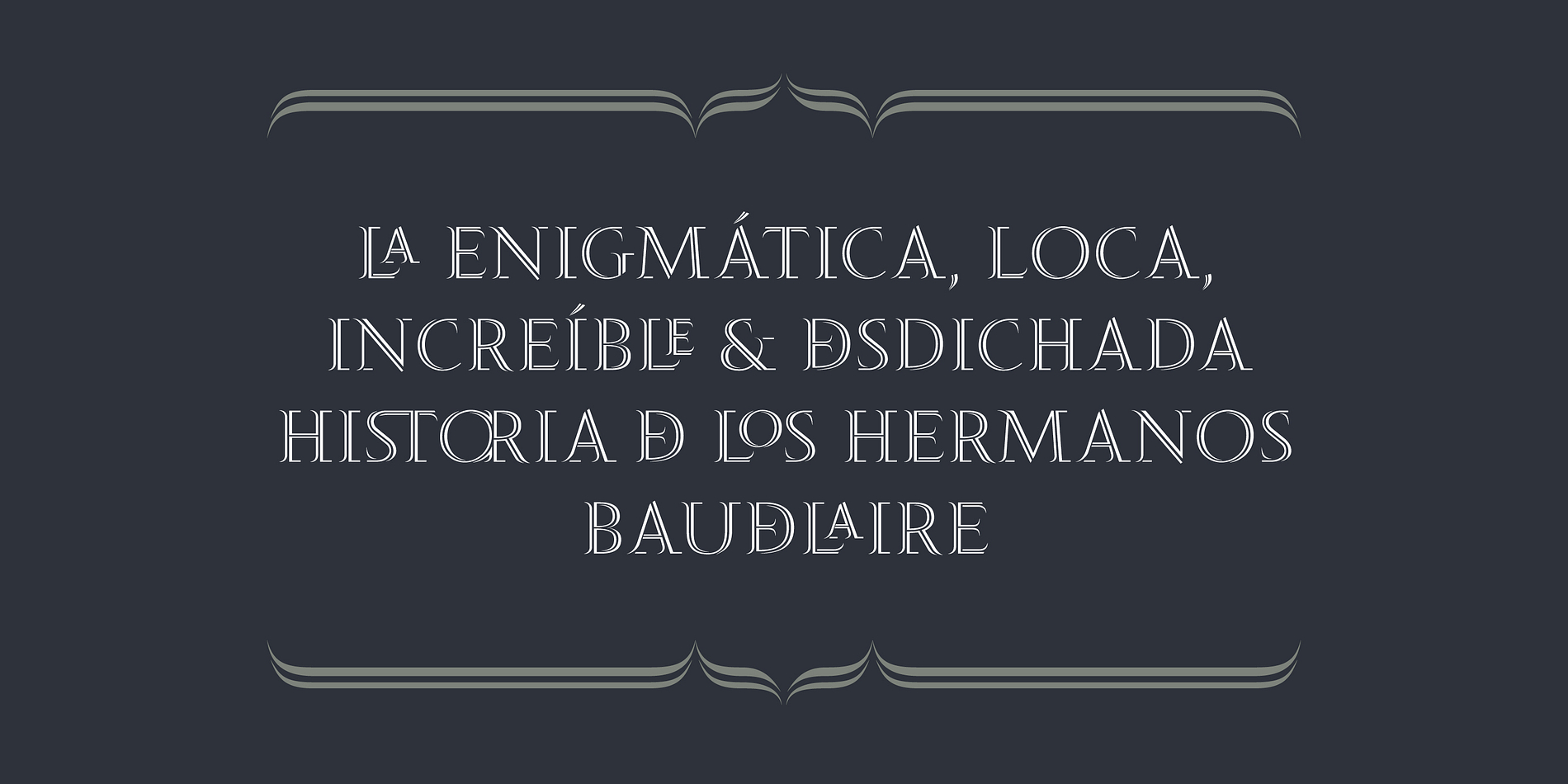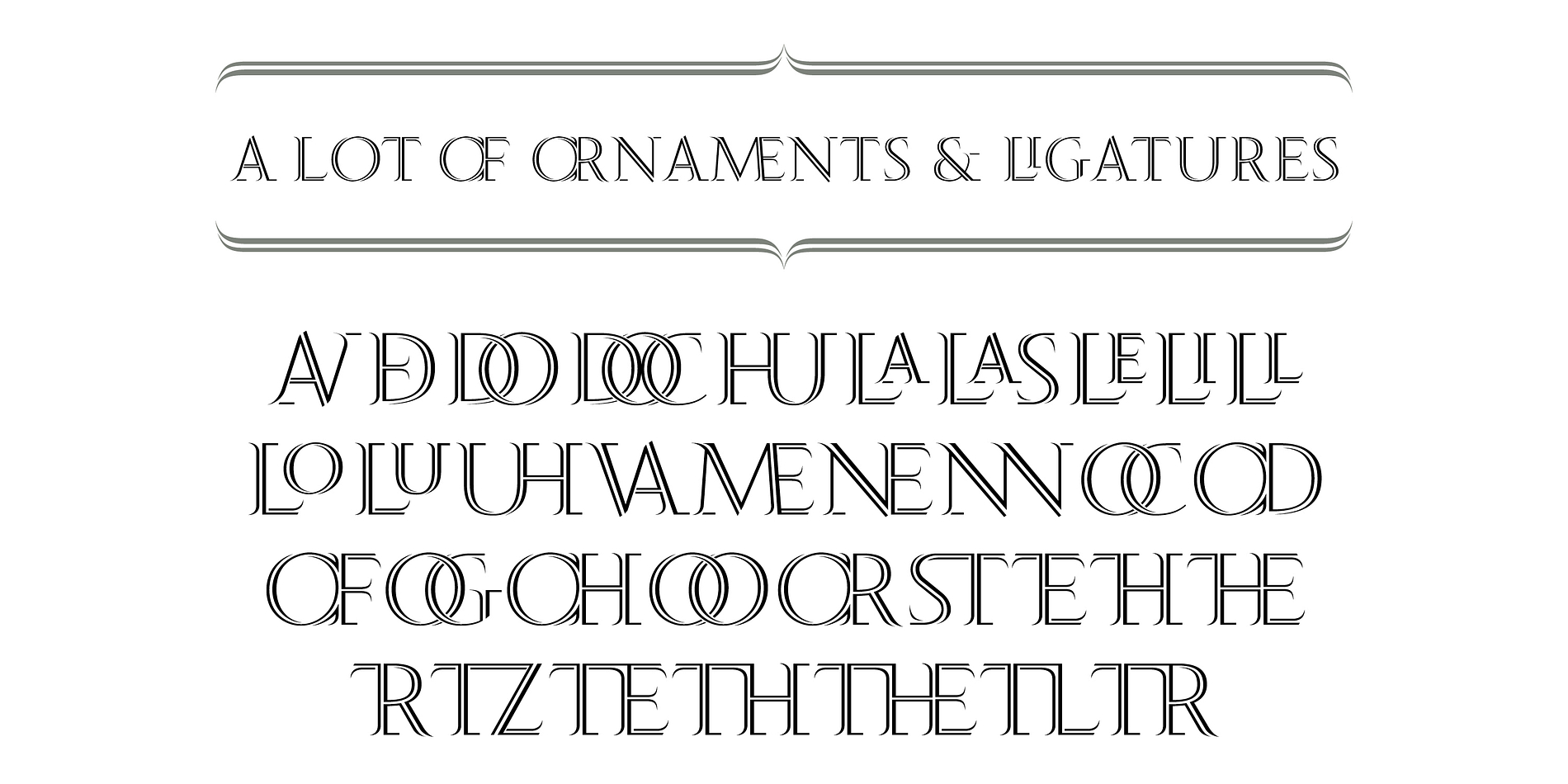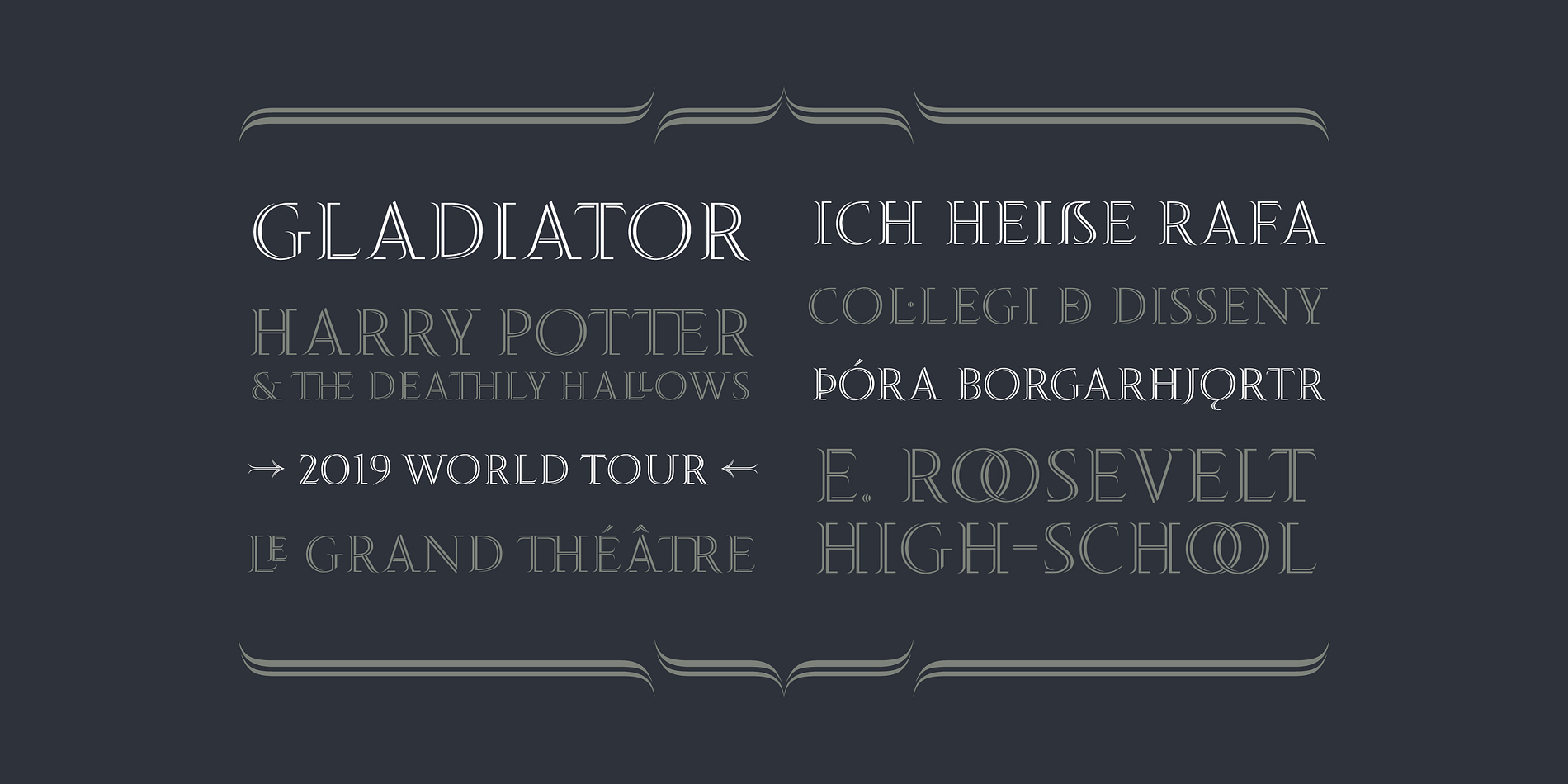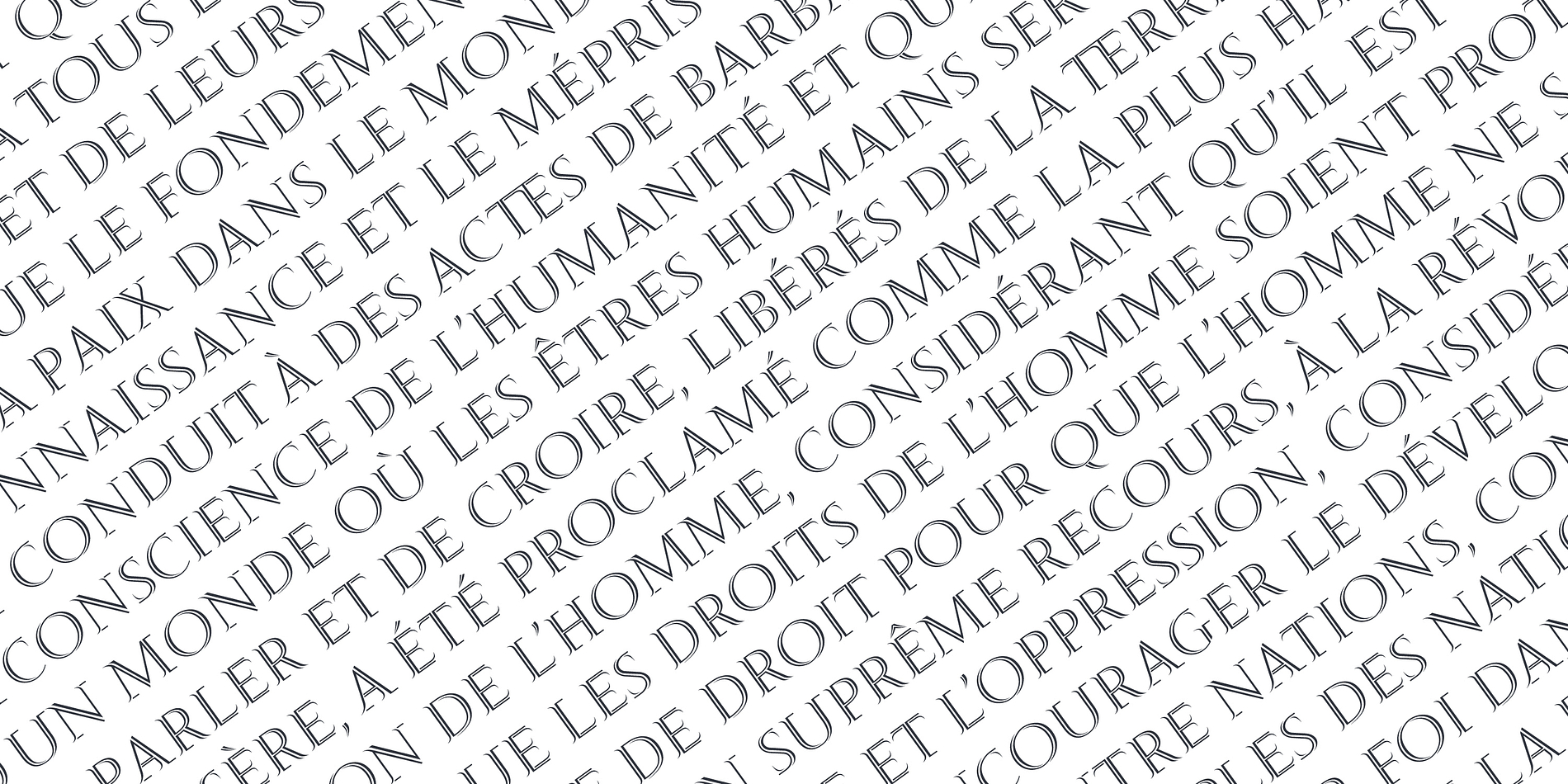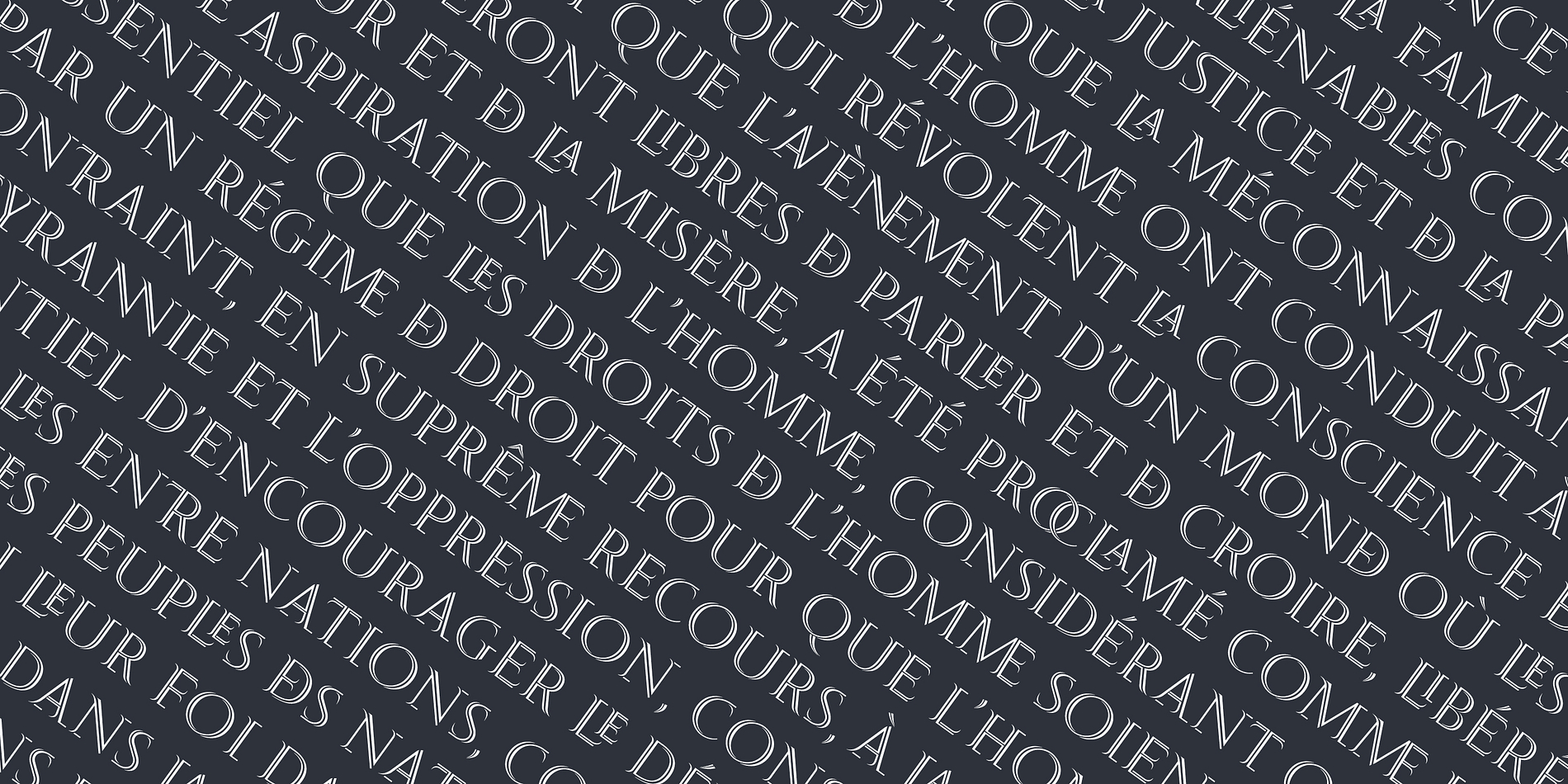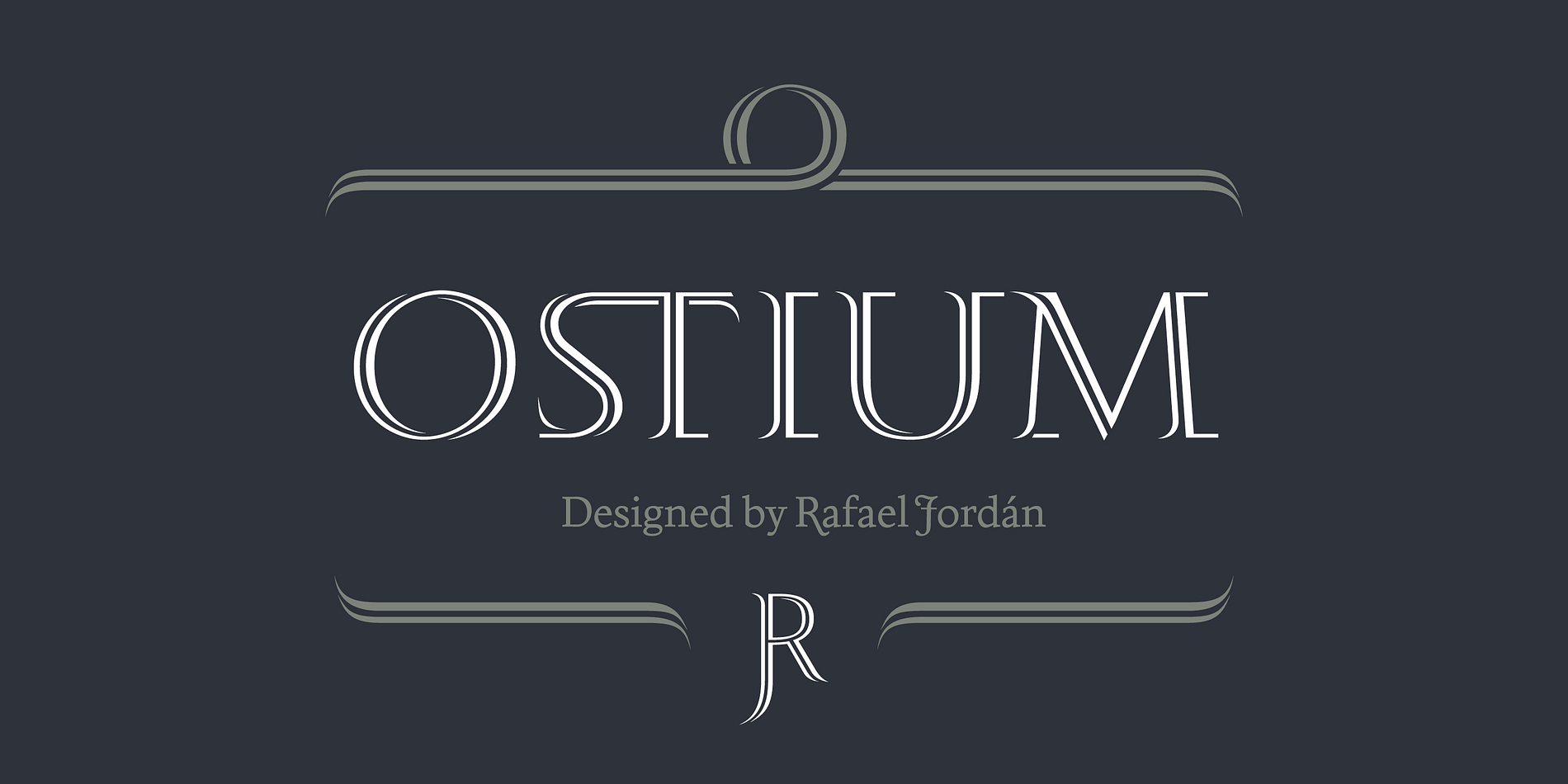
Ostium Font
Ostium is a unicase font with proportions close to classical Romans. An almost modular construction, exaggerated asymmetrical serifs and a stencil appearance by the amount of open forms that prevail in its anatomy and inspire its name: Ostium, from Latin, means “opening”. It was born in December 2018 just with the intention of designing a Christmas greeting for different social media. Based on a couple of sketched letters, a first version of the upper case was quickly drawn. Despite the initial intention with which this system was conceived, just a few hours after launching the greeting, the set of characters had grown. Ostium has support for a large number of languages in the Latin alphabet, as well as a collection of ornaments and ligatures that reinforce its expressiveness.